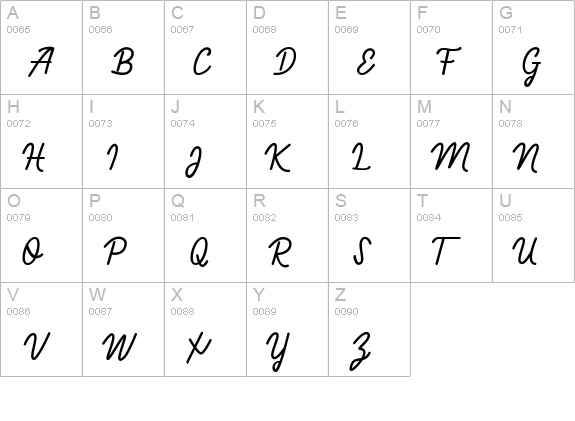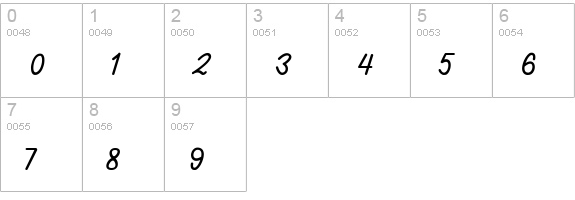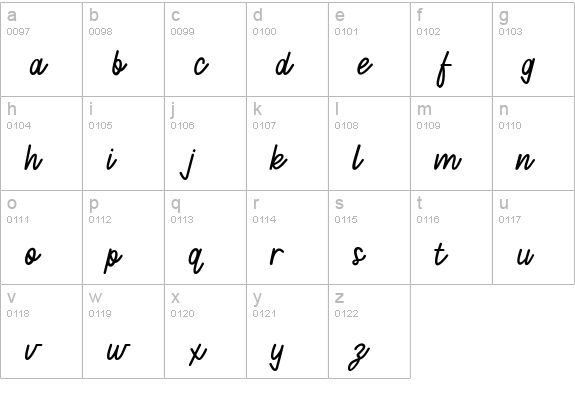
Francaise Script is a beautiful and elegant handwritten font that exudes sophistication and charm. Its flowing curves and delicate strokes give a sense of refinement and grace to any text it adorns. With its classic and timeless appeal, Francaise Script is perfect for adding a touch of elegance to invitations, wedding stationery, logos, and more.